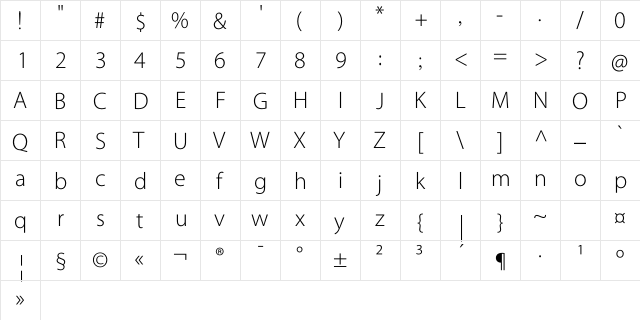
BPG Afxazeti 10EC Light
| Foundry | BPG InfoTech |
| Designer | BPG-InfoTech |
Design Context for BPG Afxazeti 10EC Typeface
BPG Afxazeti 10EC is a composed and adaptable typeface that performs quietly and consistently across a wide range of design contexts. The delicate stroke weight brings airiness and refinement to layouts.